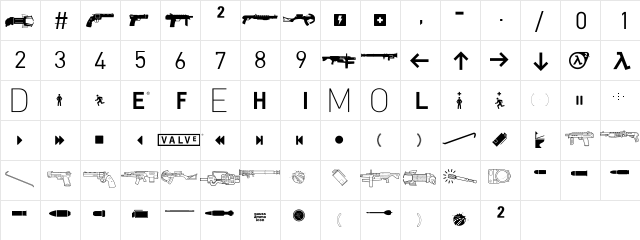
HalfLife2 Regular
| Designer | Greg Coomer |
Design Context for HalfLife2 Typeface
HalfLife2 is a composed and adaptable typeface that performs quietly and consistently across a wide range of design contexts.